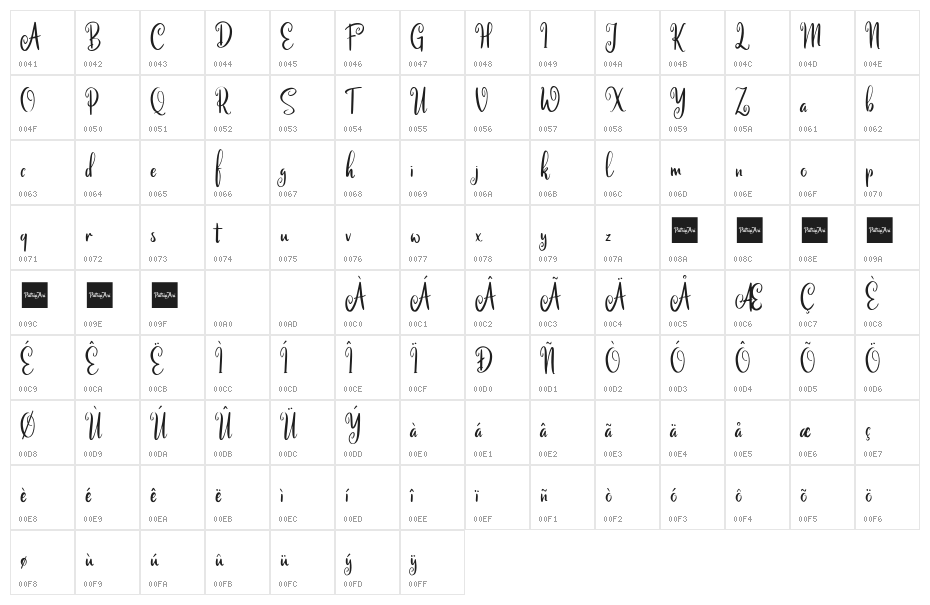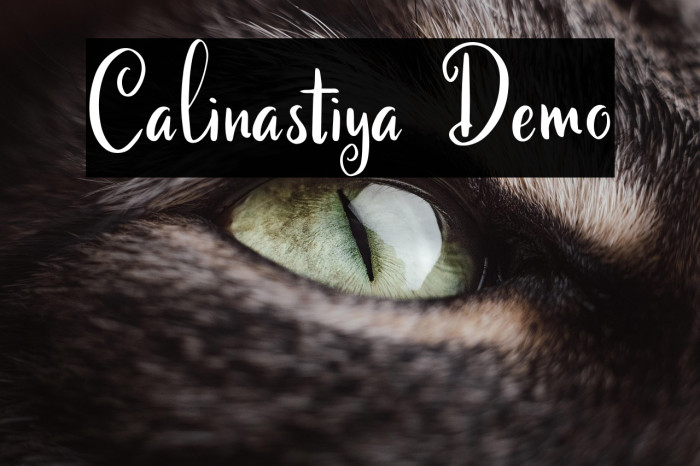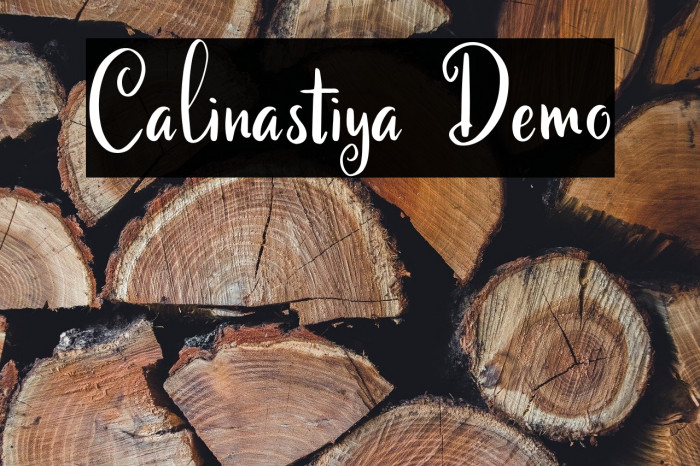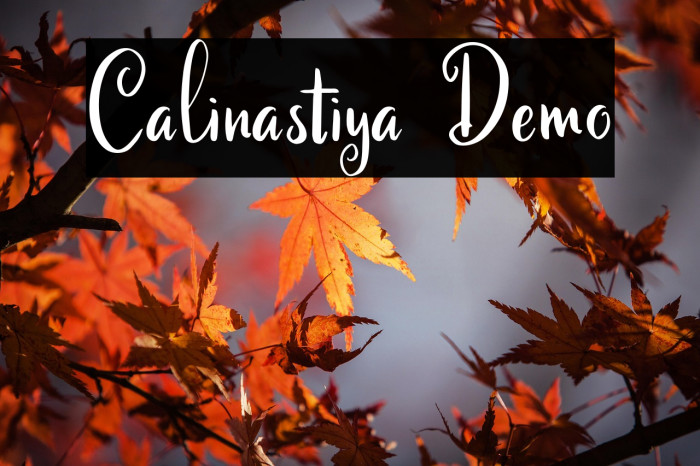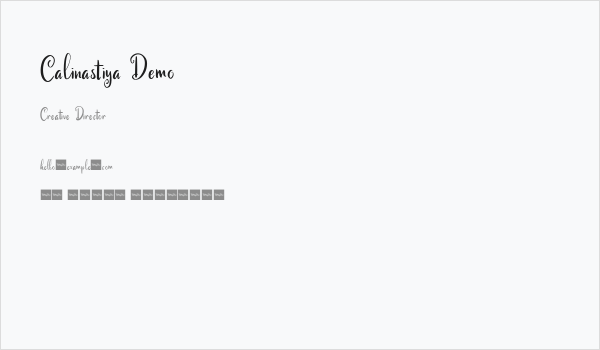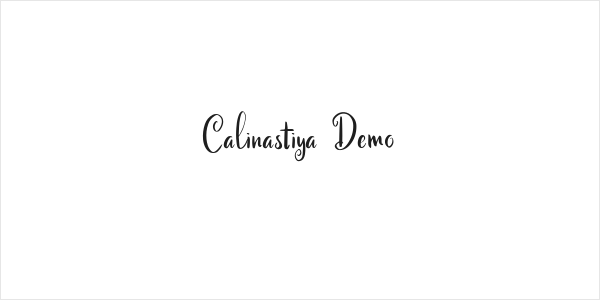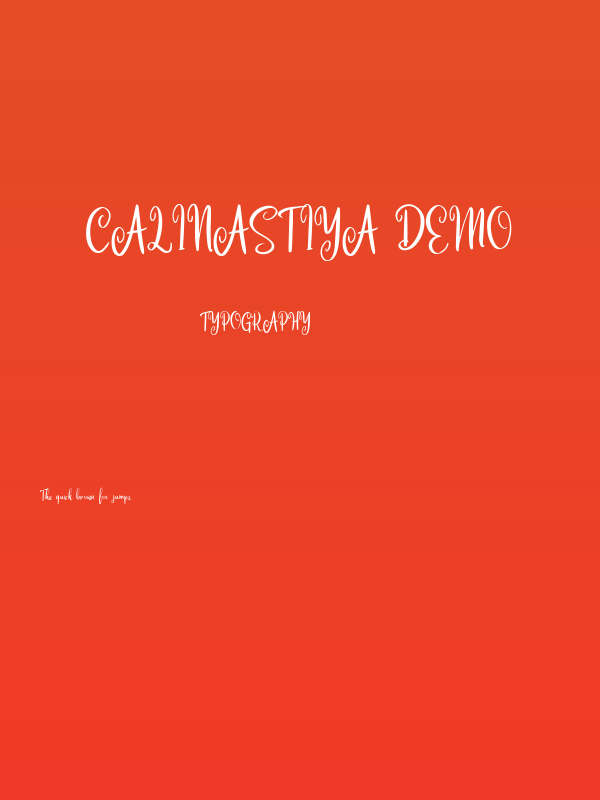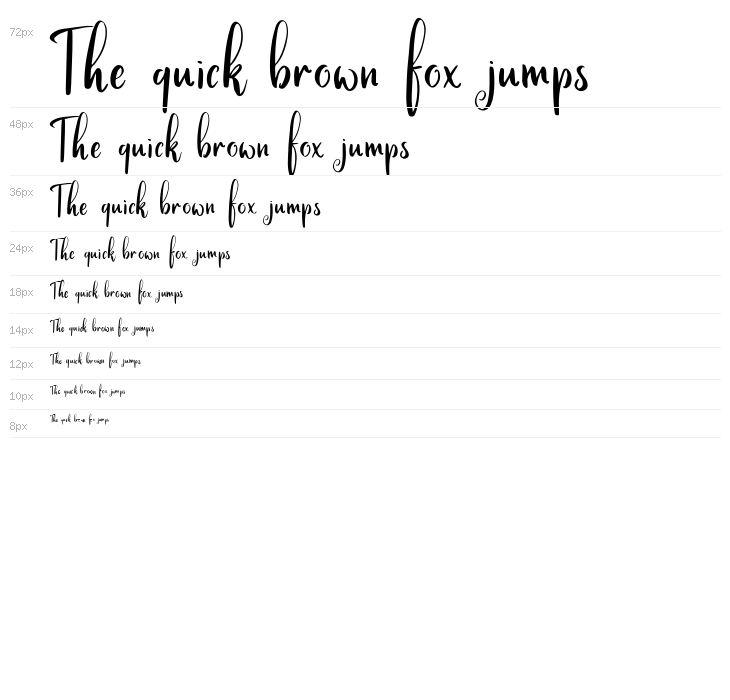
Calinastiya Demo Font
Calinastiya Demo Description
This font features a decorative and elegant script style with a flowing, cursive appearance. The uppercase letters are characterized by their intricate loops and swirls, giving them a whimsical and artistic flair. The lowercase letters maintain a consistent style with a slightly more restrained flourish, making them legible while still retaining a sense of elegance. The numbers and special characters are designed to match the overall aesthetic, with similar curves and embellishments. This font is ideal for projects that require a touch of sophistication and creativity.